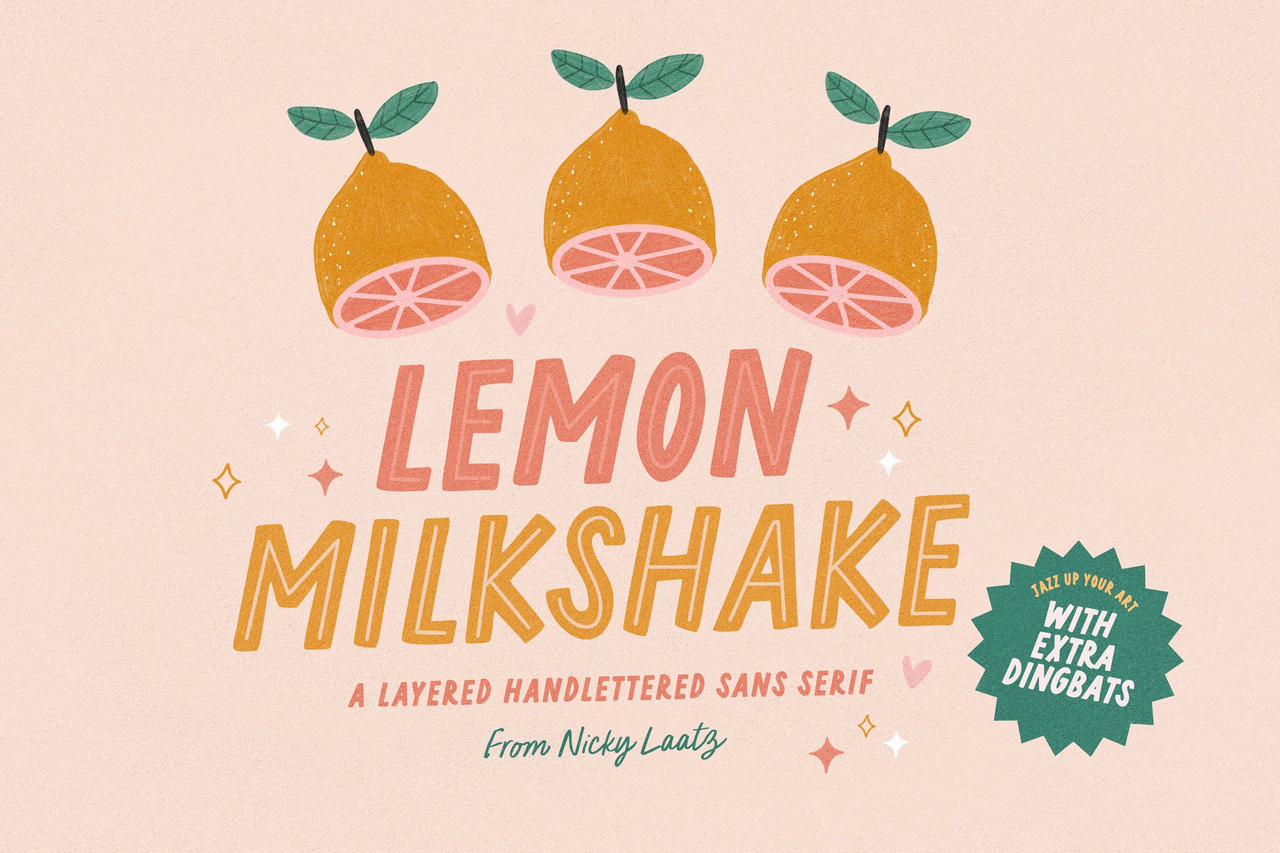
Say hello to Lemon Milkshake! A sweet little layered goody-two-shoes handwritten all-caps typeface Available in three variants - Regular, Upright and Slanted - pick the one that suits your project best.